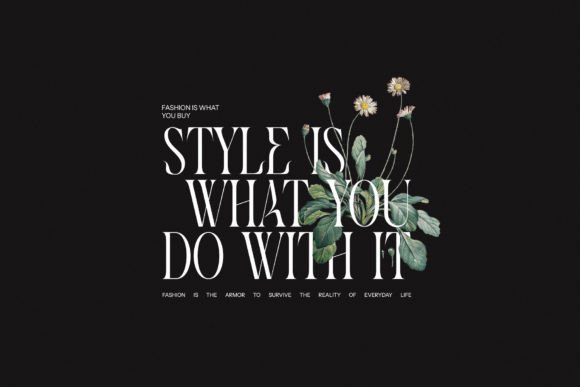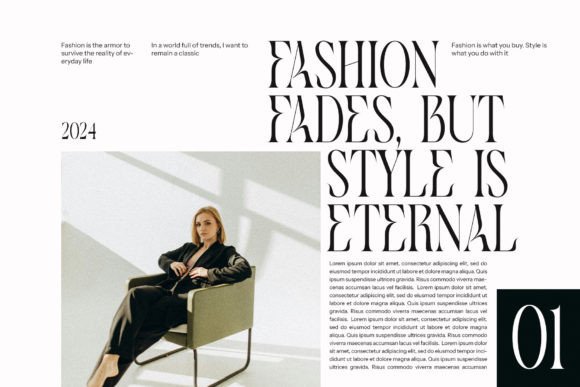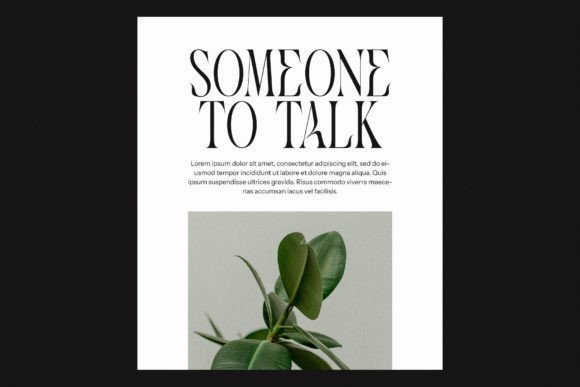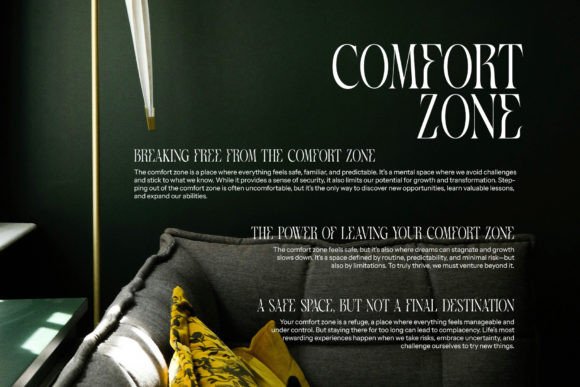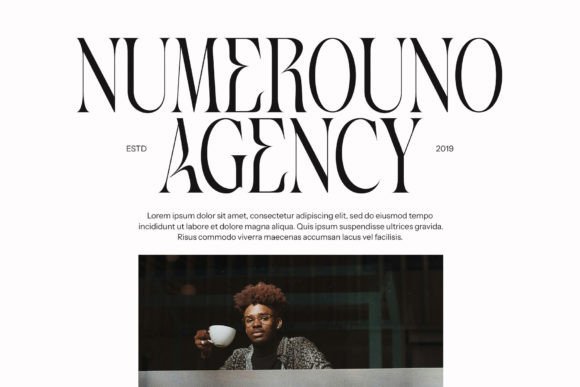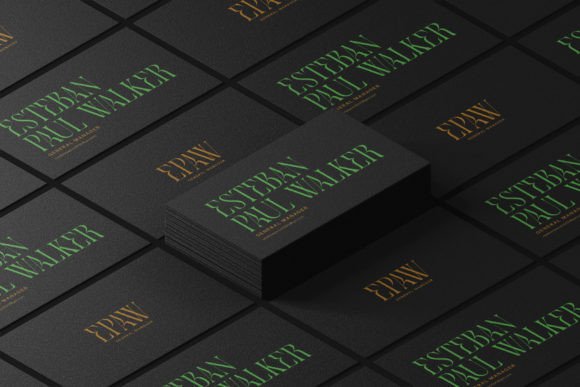
Introduction to Magistr Font
Magistr is an elegant serif typeface with clean, classic lines.
It has a refined look, making it great for both modern and traditional designs Perfect for headlines, logos, and print materials, Magistr adds a touch of sophistication and style to any project.
Key Features of Magistr Font
Why Choose Magistr Font?